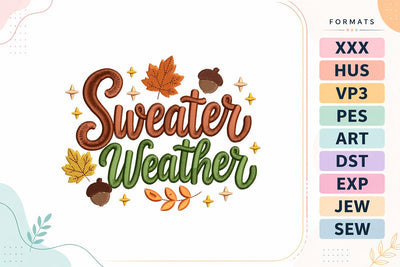
Autumn Sweater Weather Embroidery Design
A cozy autumn typography embroidery design featuring elegant script lettering with colorful fall leaves, acorns, and seasonal accents. Perfect for sweatshirts, hoodies, tote bags, pillows, kitchen towels, home décor, and handmade fall gifts. Sizes: 4x4, 5x7